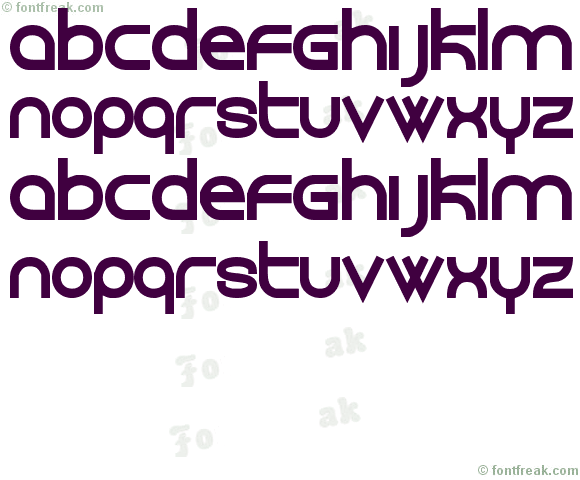
About Roundabout
Discover the Roundabout font by Niels Bonnevie, a delightful and versatile typeface that stands out in the realm of decorative fonts. This freeware font features a unique display style characterized by its rounded edges and playful letterforms, which convey a sense of warmth and friendliness. The stroke weight is consistent throughout, creating a harmonious appearance that is both modern and inviting. With minimal contrast, the letters are well-balanced, making them easy to read while maintaining an artistic flair. The spacing between characters is generous, allowing for clarity and legibility, which enhances its overall appeal.
Roundabout is perfect for a variety of creative applications. Its whimsical aesthetic makes it an excellent choice for wedding invitations, where its rounded forms can evoke a sense of joy and celebration. Additionally, it shines in the design of movie posters, particularly for family-friendly films or animated features, where its playful nature can capture the audience's attention. Restaurant menus can also benefit from Roundabout's inviting look, helping to create a warm atmosphere that draws diners in. Furthermore, content creators will find this font ideal for social media graphics and blog headers, as it resonates well with audiences seeking a friendly and approachable vibe.
The target audience for Roundabout includes graphic designers, small business owners, and content creators who are looking for a typeface that adds character to their projects. The font's versatility and charm make it suitable for anyone seeking to enhance their visual communication.
What truly sets Roundabout apart is its unique balance of playfulness and readability, making it a standout choice for designers looking to infuse their work with personality. With the Roundabout font free download available, you can easily incorporate this charming typeface into your next project and elevate your design work effortlessly.